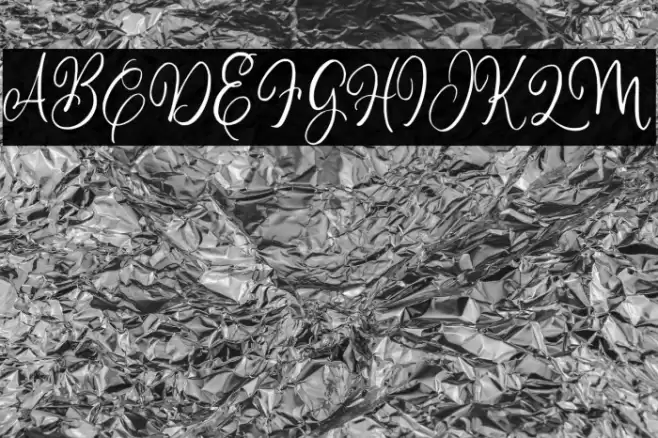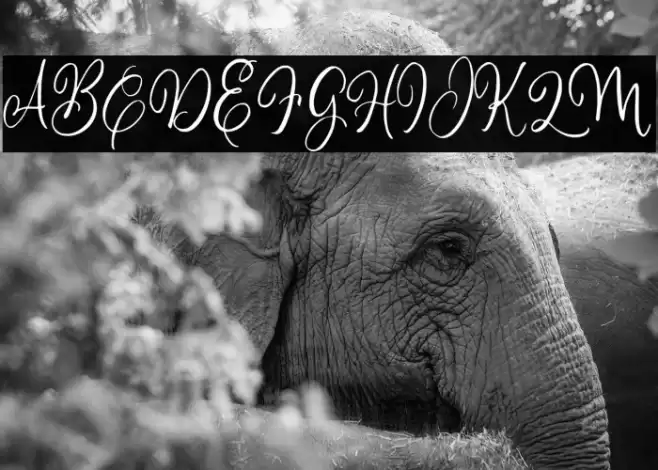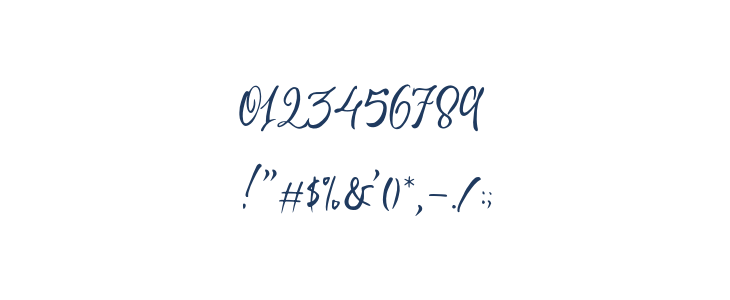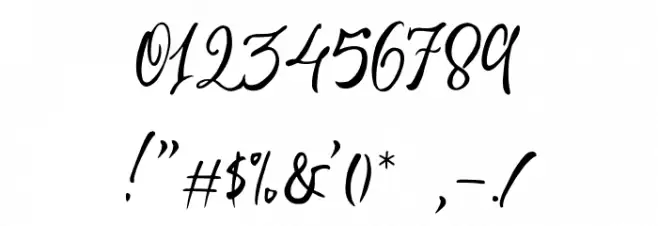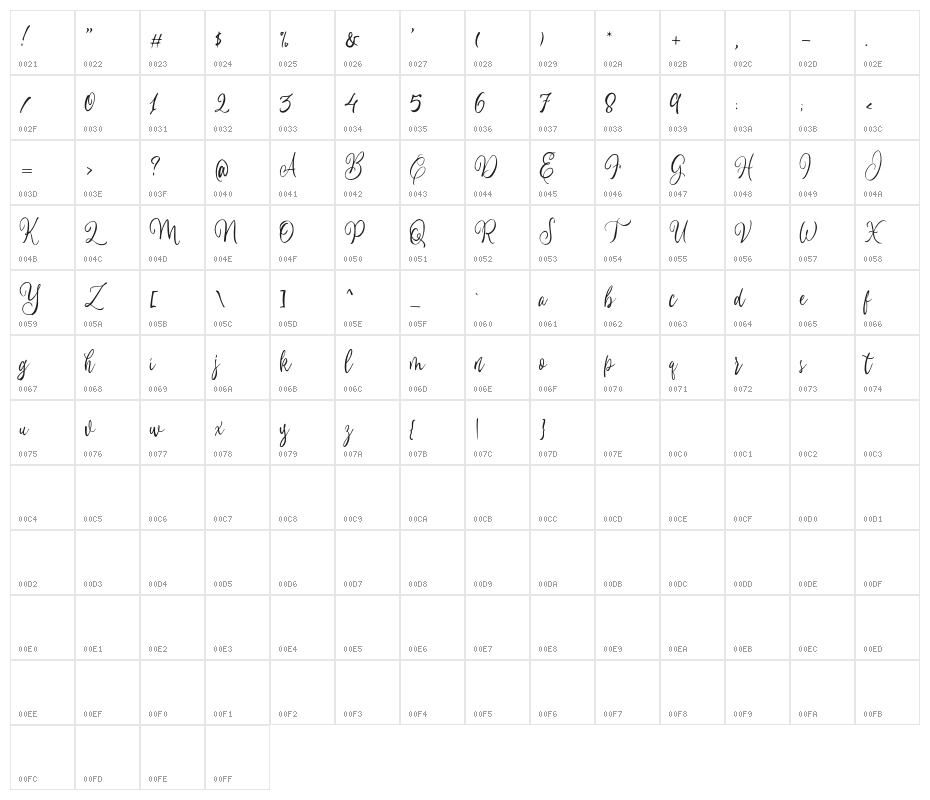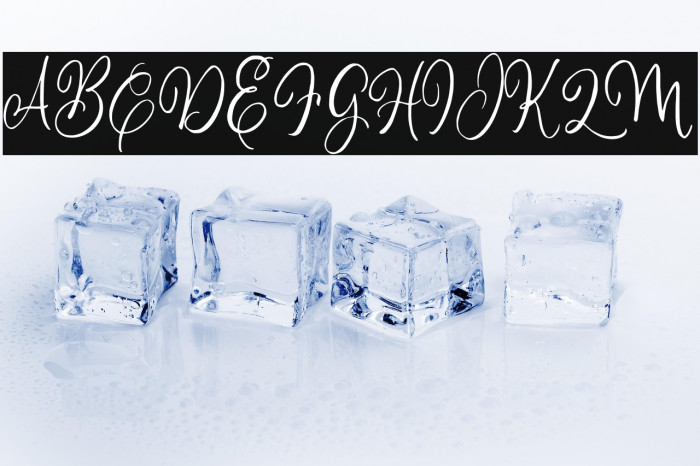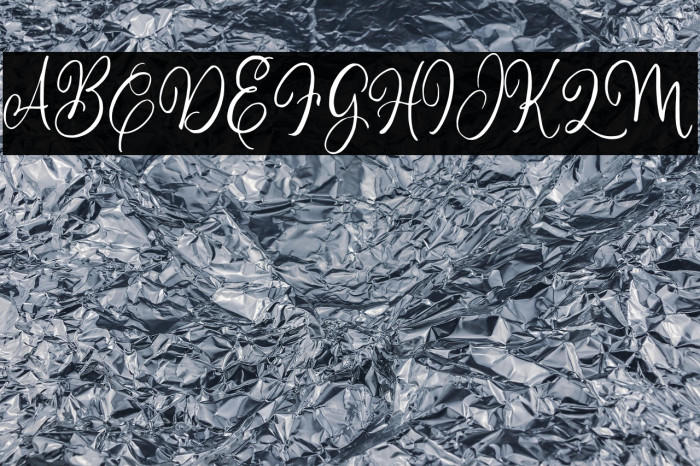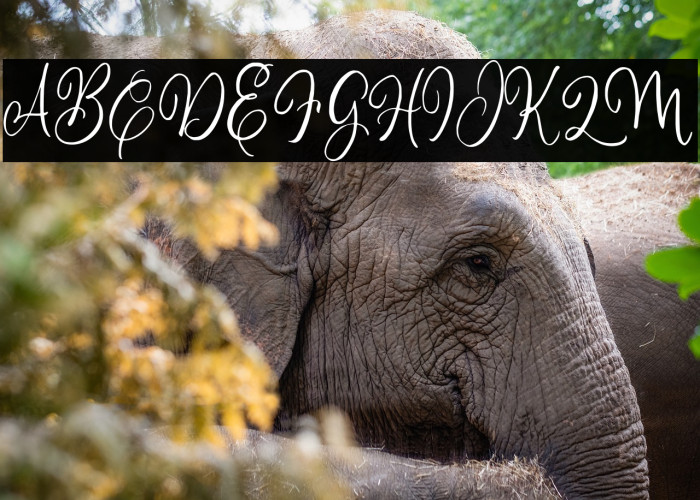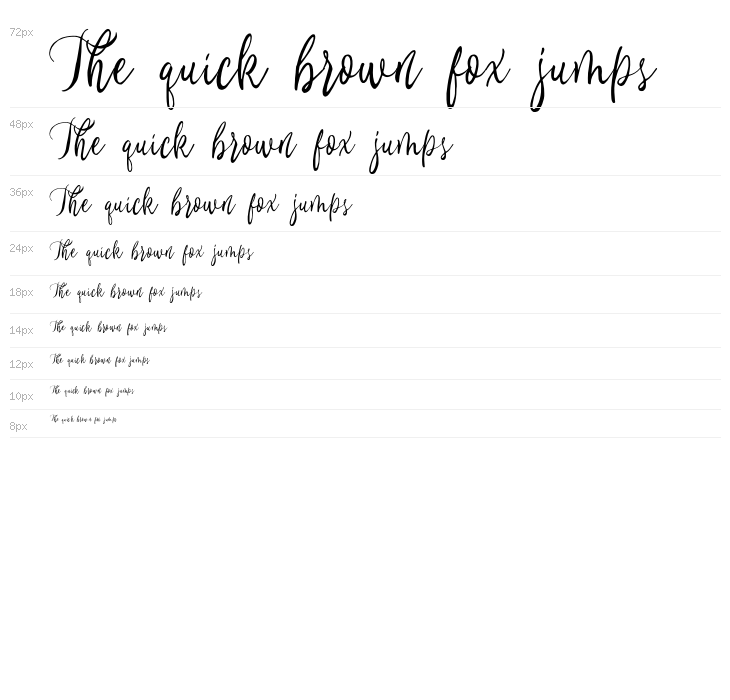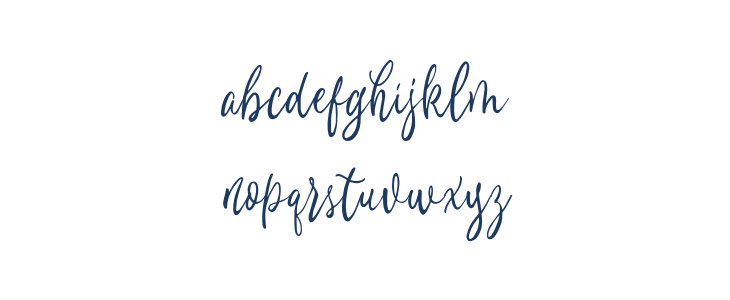
ChilldayDEMO Font
ChilldayDEMO Description
This elegant script font features flowing, cursive letters with a distinct calligraphic style. The uppercase letters are ornate, with sweeping loops and flourishes that give a sense of sophistication and grace. The lowercase letters maintain a consistent flow, with smooth connections between characters, enhancing readability while retaining an artistic flair. The numerals are styled to match the script, offering a cohesive look across all characters. Special characters are thoughtfully designed, complementing the overall aesthetic. This font exudes a sense of elegance and is perfect for projects that require a touch of class and refinement.
An elegant script font with flowing, cursive letters and calligraphic style from Uncategorized fonts.
- Font: ChilldayDEMO
- Proposed Projects: Ideal for wedding invitations, elegant branding, greeting cards, and upscale packaging.
- Overall Style: Elegant, Calligraphic
- Use Case: Headlines, Invitations, Branding